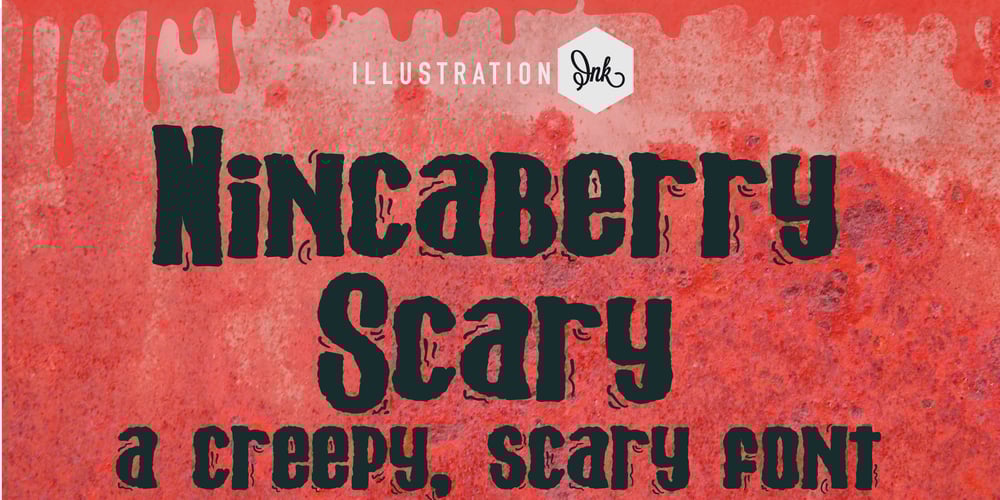
ZP Nincaberry Scary Font Family was designed by Illustration Ink and published by Illustration Ink. ZP Nincaberry Scary contains 1 styles and family package options. This hand-crafted sans serif is quivering with fear with it’s squat lettering and lack of decenders.A hand-crafted font is a font that is designed to look like it was written by hand. It is often used for invitations, greeting cards, and other items. Handwritten fonts can be either formal or informal, and they can be used for a variety of purposes.Some of the characteristics of handwritten fonts include: The letters are not perfectly uniform in size or shape. There may be slight variations in the spacing between letters and words. The font may have a “wiggly” or “squiggly” appearance. The font may be difficult to read at small sizes. Handwritten fonts can be a great way to add a casual touch to your designs. They can also be used to create a sense of nostalgia or whimsy. However, it is important to choose a handwritten font that is appropriate for the project you are working on. A formal handwritten font may not be appropriate for a casual invitation, while an informal handwritten font may not be appropriate for a corporate document.